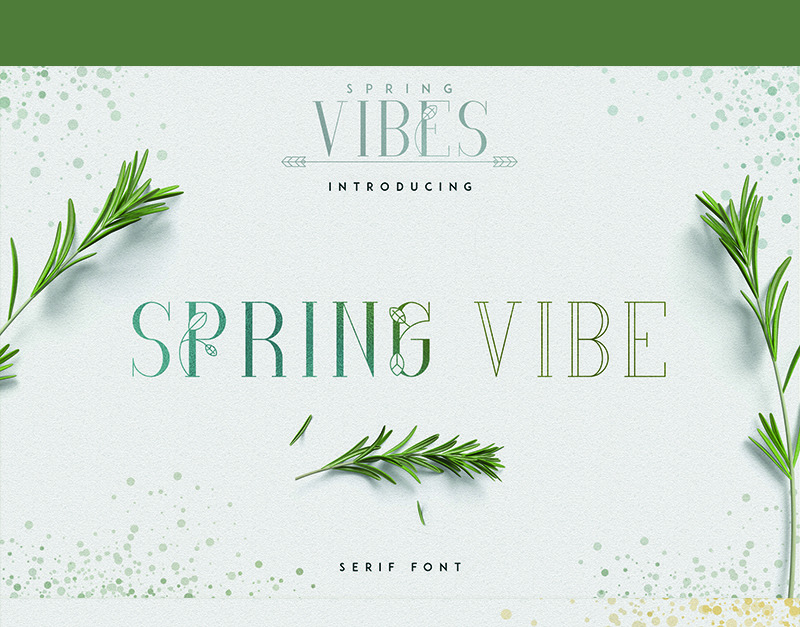
Spring Vibe Font
Introducing 6th product from Spring Vibes collection called SpringVibe Serif Font
SpringVibe is fine crafted modern serif font with 26 alternatives, multilingual support and photoshop styles. It's a very versatile font that works great in large and small sizes.
SpringVibe is perfect for branding projects, home-ware designs, product packaging, wedding invitations, magazine headers - or simply as a stylish text overlay to any background image.
- Uppercase,lowercase,numeral,punctuation & Symbol
- 26 Alternative Glyphs
- Multilingual